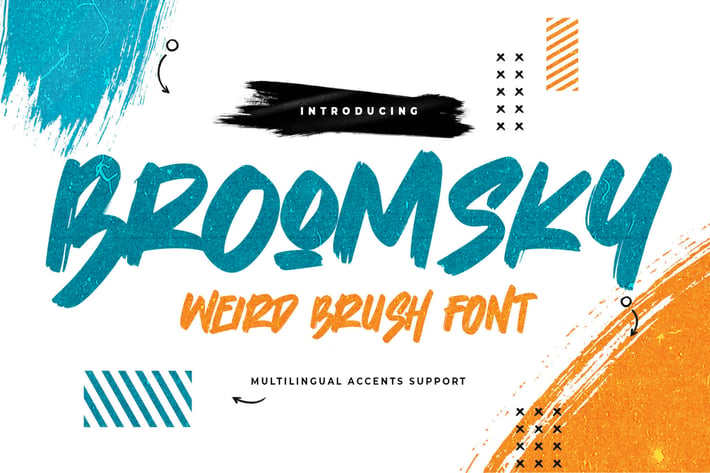
Broomsky -Weird Brush Font
Introducing Broomsky – Weird Brush Font is an Authentic Style and brush style, this font is great for your creative projects such as watermarks on photography, and perfect for logos & branding, photography, invitation, watermark, advertisements, product designs, stationery, wedding designs, label, product packaging, special events or anything that need brush taste.
Broomsky has a natural handwritten feel. This handmade font will make your design has a beautiful natural touch for each detail. It is perfect for any design project as an Invitation, logo, book cover, craft, or any design purposes.
photos, photography overlays, signs, window art, scrapbooking, tags and so much more!